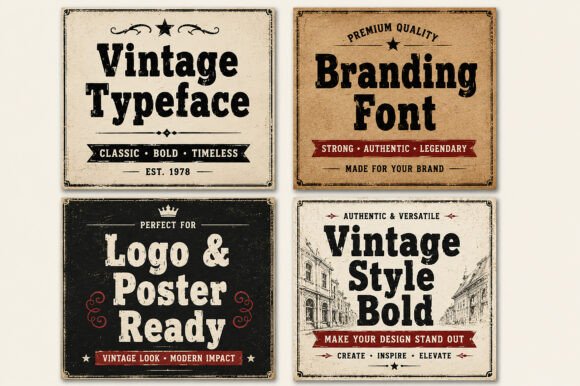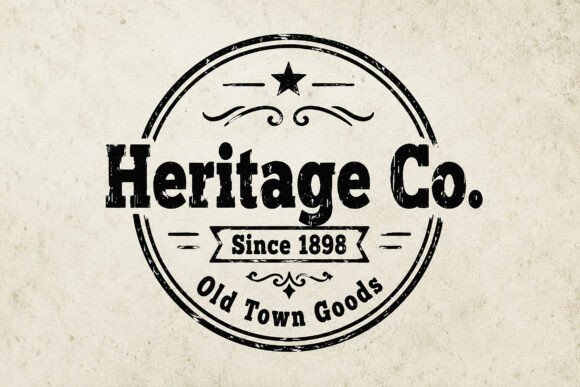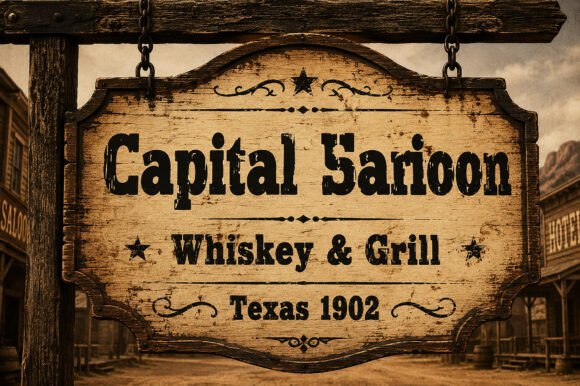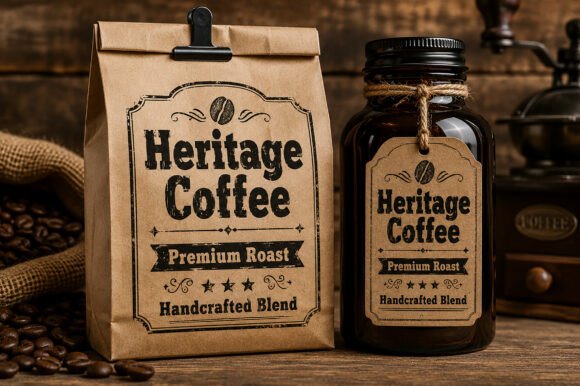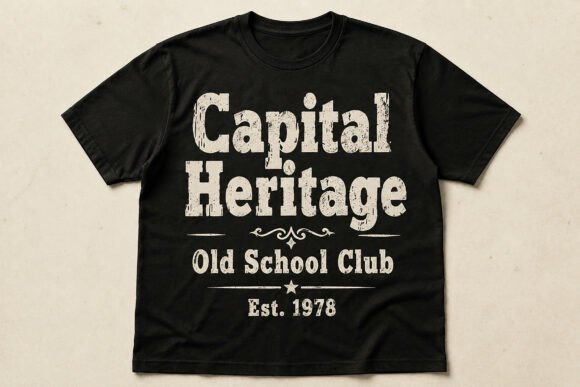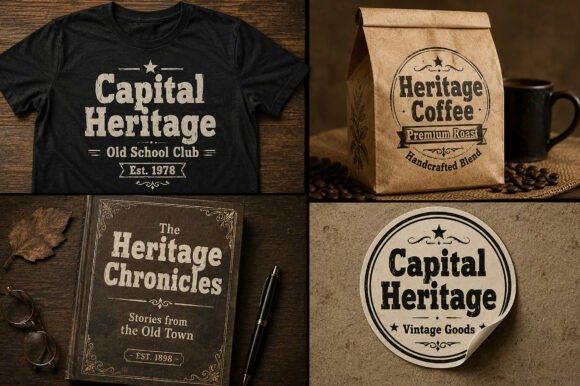
Timeless Typography: Unveiling the Power of Capital Heritage Font
Imagine strolling through a vintage bookstore, surrounded by dusty tomes and forgotten knowledge. The air is thick with the scent of aged paper and the soft glow of antique lamps. As you run your fingers over the spines of the books, you feel a connection to the past, a sense of history and tradition. It’s in moments like these that the beauty of typography truly shines, and the Capital Heritage Font is the perfect embodiment of that nostalgia.
This bold vintage serif font is designed to evoke the industrial grit and editorial power of the late 19th century. With its extra-thick slab serif architecture and beautifully detailed, weathered stamp texture, the Capital Heritage Font is an absolute powerhouse centerpiece for any designer looking to add a touch of authenticity and craftsmanship to their work.
Capital Heritage Font Key Features
- Font Family: Capital Heritage Font is a serif font designed for historical and formal applications, with 6 font styles available.
- Unique Characteristics: Capital Heritage Font features elegant and classic letterforms, with subtle flourishes and ornaments, making it ideal for formal documents, historical publications, and luxury branding.
Capital Heritage Font Review
Overall, I have mixed feelings about the Capital Heritage Font. While it has some great qualities, it also has some limitations that might make it less appealing to certain designers.
- ✨ Elegant and sophisticated feel: The font has a classic, high-end look that would be perfect for luxury brands or heritage companies.
- ✨ Versatility: Capital Heritage Font comes in a range of weights and styles, making it easy to use in different design contexts.
- ✨ Good legibility: The font is clear and easy to read, even at smaller sizes.
However, there are also some limitations:
- ⚠️ Limited personality: While the font looks elegant, it also feels quite generic and lacking in personality. It may not stand out in a crowded design landscape.
- ⚠️ Not ideal for modern brands: The font’s classic feel may not be the best fit for modern or edgy brands that want to make a bold statement.
Overall, I would say that the Capital Heritage Font is a solid choice for designers who need a professional-looking font for traditional or heritage brands. However, it may not be the best fit for more modern or experimental design projects.
Tips for Getting the Most Out of Capital Heritage Font
For optimal results, use Capital Heritage Font in conjunction with a serif font for body text. This will create a clean and classic look. You can also use it for headings, titles, and other display text.
Capital Heritage Font is ideal for:
- Historical or vintage-themed designs
- Formal or corporate branding
- Academic or research-based projects